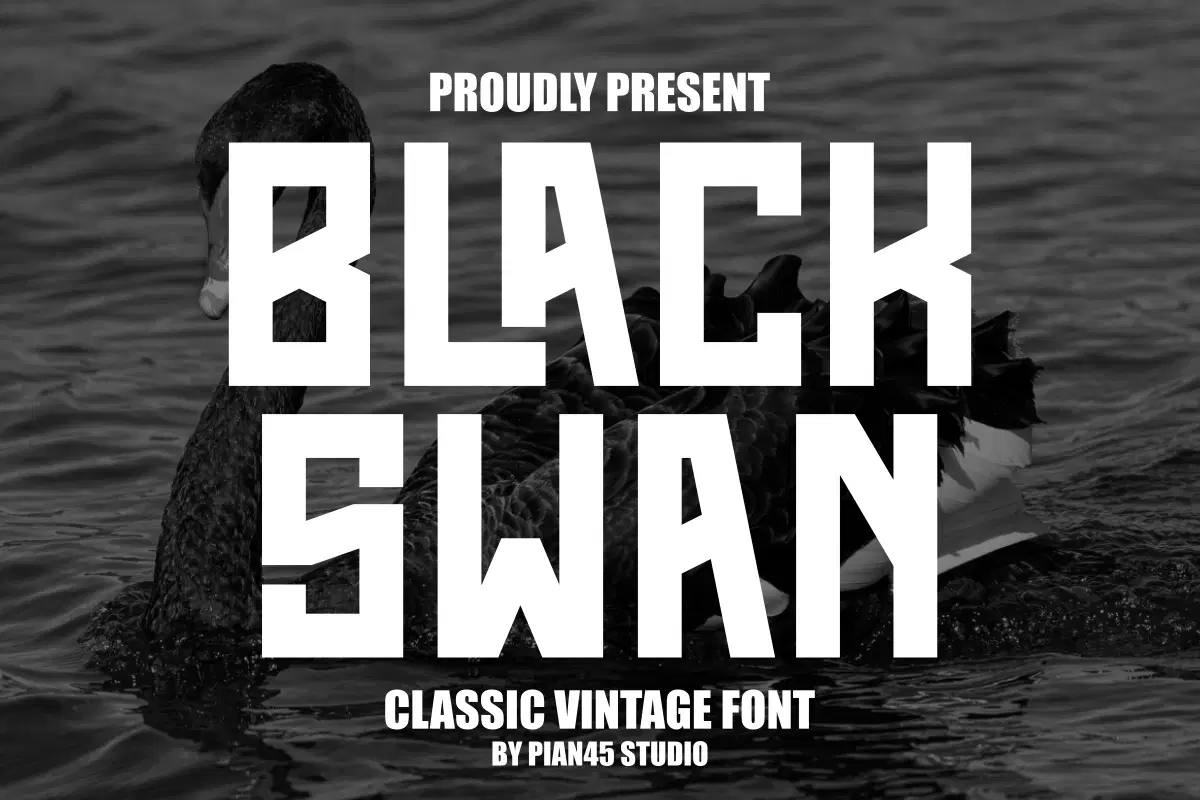
Black Swan - Classic Vintage Font
Black Swan is an assertive Classic Vintage Font with a powerful, geometric display style. Its ultra-bold, all-caps structure features sharp angles and strong presence, making it ideal for high-impact branding, sports or athletic apparel, monumental event posters, and bold, confident headlines. This typeface seamlessly blends a vintage block font aesthetic with a modern, dramatic feel, perfect for projects requiring a dominant and instantly recognizable visual identity.